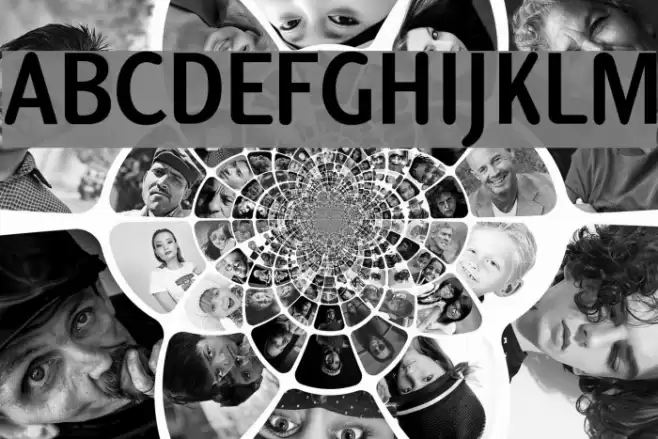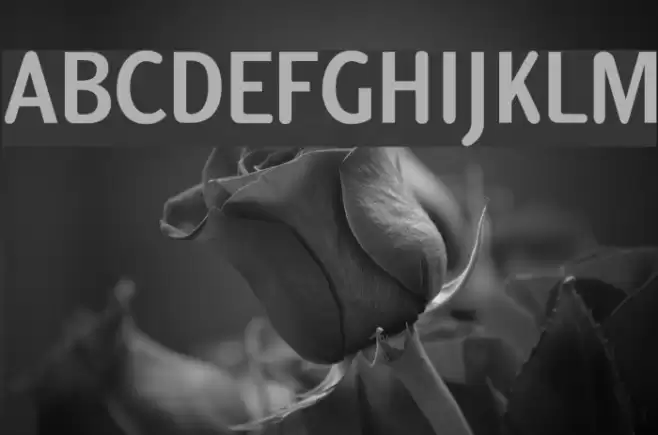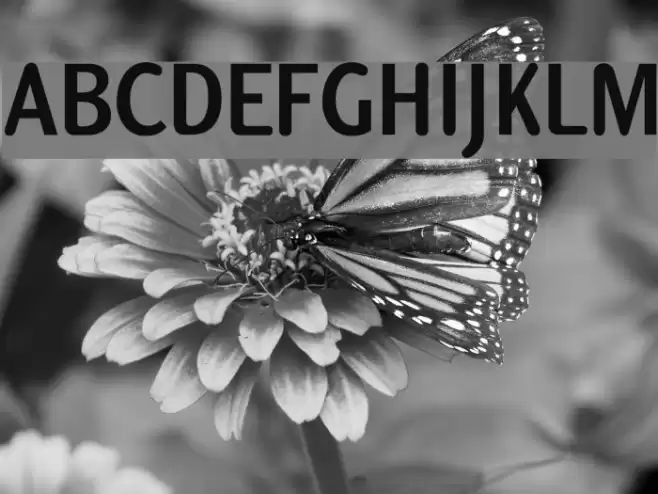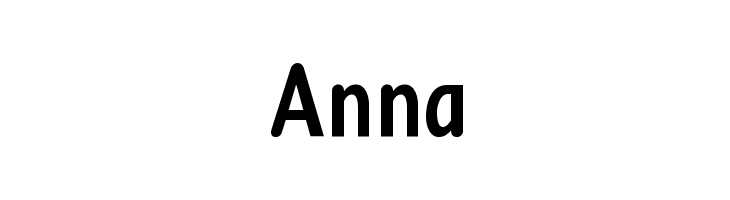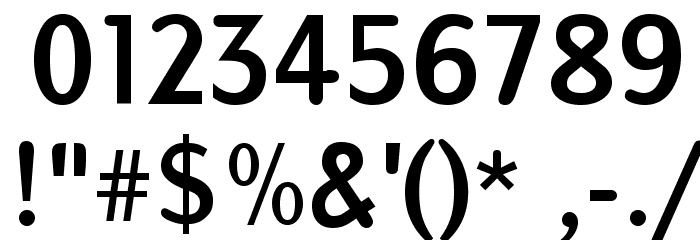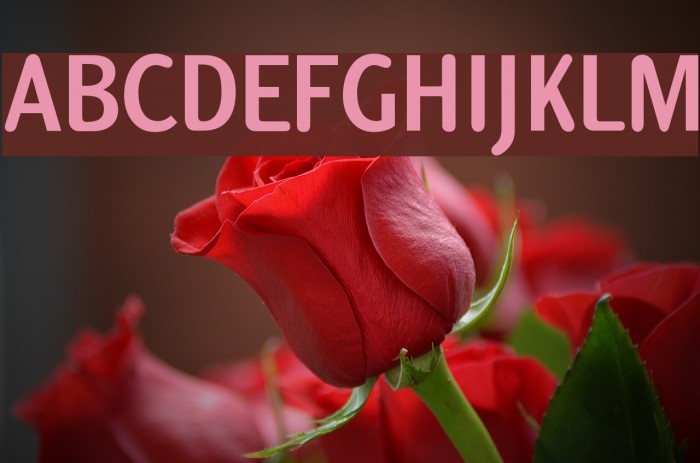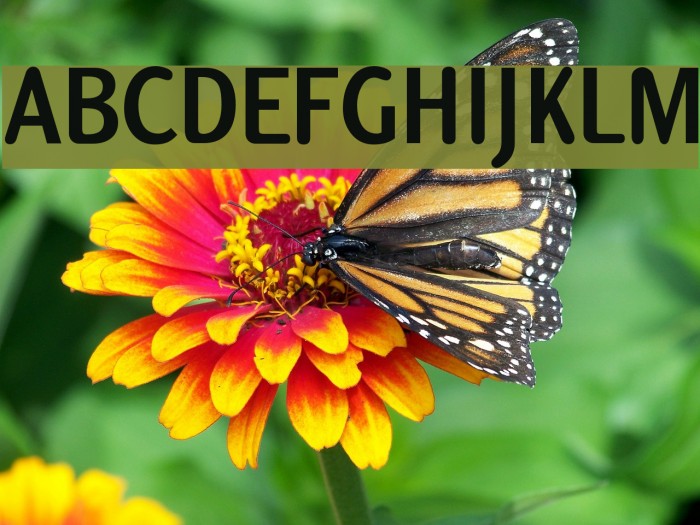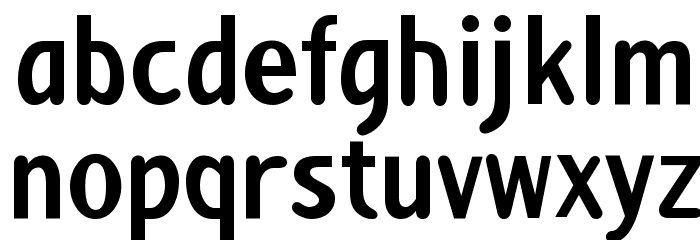
Anna
This font features a clean and modern sans-serif design, characterized by its uniform stroke width and lack of serifs. The letters are well-proportioned, with a slightly rounded appearance that adds a touch of friendliness to the overall look. The uppercase letters are bold and assertive, while the lowercase letters maintain a consistent style that complements the uppercase. The numerals are clear and easy to read, making them suitable for both digital and print applications. Special characters are included, providing versatility for various uses. The font's simplicity and clarity make it ideal for a wide range of design projects.
A modern, clean sans-serif font with uniform stroke width and rounded edges.
- Proposed Projects: Ideal for branding, web design, advertising, and editorial projects.